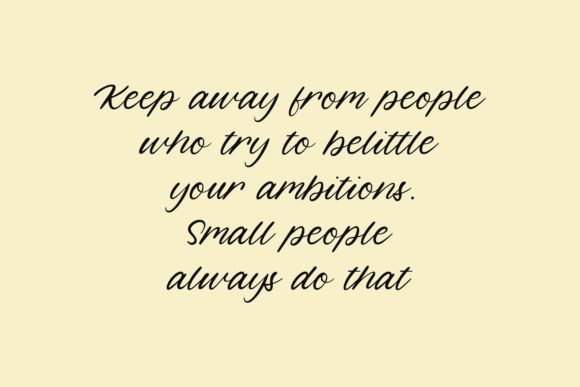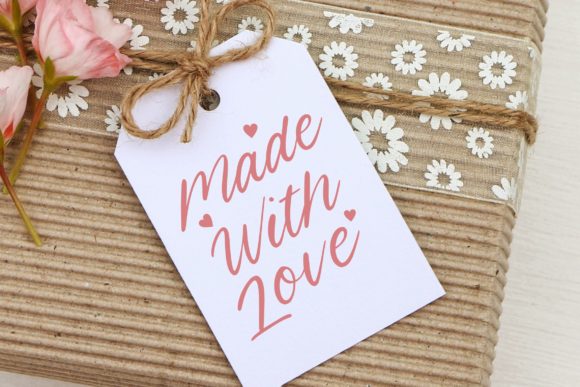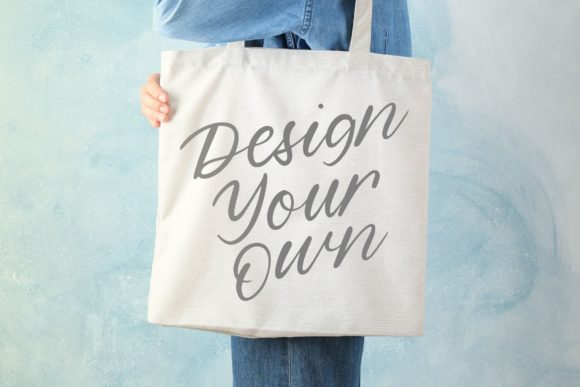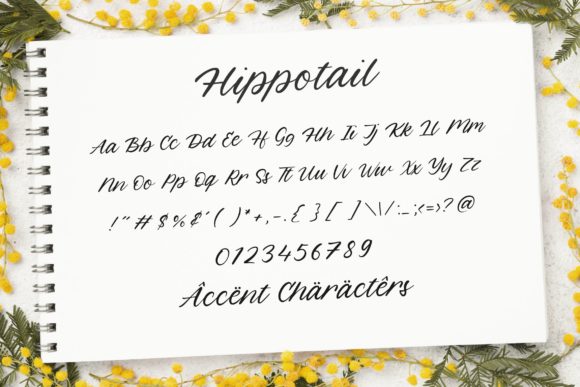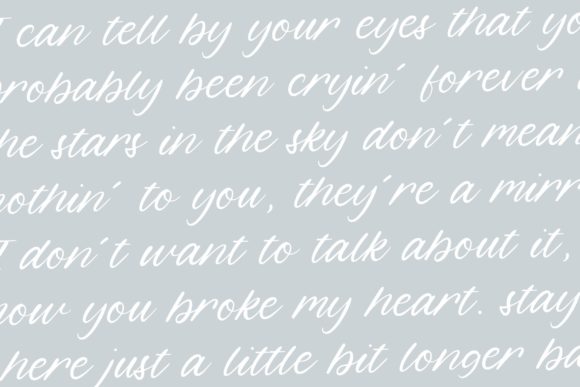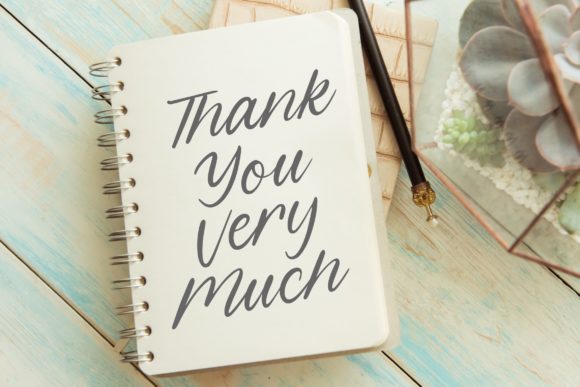
Introduction to Hippotail Font
As a designer, there’s nothing quite like the thrill of stumbling upon the perfect font for your creative project. The moment when the words start flowing, and the design begins to take shape – it’s a feeling that’s hard to beat. For me, that moment came when I discovered the Hippotail Font, a flowing handwritten font that exudes elegance and sophistication.
With its high-quality design and transparent background, Hippotail Font is a versatile design resource that’s perfect for a wide range of creative projects. Whether you’re working on a free download, a social media graphic, or a full-fledged branding campaign, this font is sure to impress. And the best part? It’s available for free download, making it an accessible and valuable resource for designers of all levels.
As a valuable addition to any design toolkit, Hippotail Font offers a unique and timeless style that’s sure to elevate your designs to the next level. So why settle for a generic font when you can fall in love with the distinct and sophisticated charm of Hippotail Font?
Key Features of Hippotail Font
- The Hippotail Font is a high-quality design resource, perfect for creative projects that require a unique and eye-catching font.
- The unique, cursive design of the Hippotail Font makes it perfect for adding a touch of elegance and sophistication to any creative project.
Honest Review: Hippotail Font
I recently stumbled upon the Hippotail Font while searching for a high-quality design resource for my creative project. I must say, I was impressed by its unique style and versatility. The font is a free download, which is always a plus in my book.
What works well with the Hippotail Font is its ability to add a touch of whimsy and playfulness to any design. The font is perfect for projects that require a sense of adventure and exploration. I particularly like the fact that it has a transparent background, making it easy to overlay on top of other elements.
- ✨ Unique and versatile design style
- ✨ Perfect for creative projects that require a sense of adventure
- ✨ Transparent background for easy overlay
However, I did notice that the font may not be suitable for projects that require a more professional or formal tone. Additionally, the font may not be compatible with all operating systems or software.
Overall, I would highly recommend the Hippotail Font for designers who are looking for a unique and creative design resource. Just be aware of its limitations and use it accordingly.
The Hippotail Font is perfect for use in logos, branding materials, and social media graphics. Its high-quality design and transparent background make it ideal for overlaying text on images. You can also use it in creative projects such as typography art, posters, and flyers.